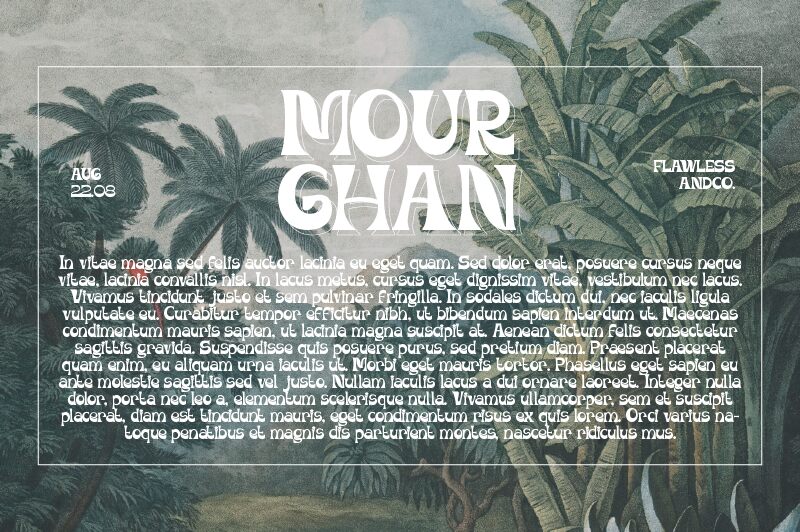
Mourghan Regular
Mourghan font is a retro-inspired display font created by Achmad Yani of Flawless and co. The groovy, bold typeface has distinctive shapes that combine to form theatrical, ornamental letters with an expressive presence. Its ornamental details, vintage flair, and striking character make it a meaningful addition to your aesthetic work.
The free font can be handy in projects involving posters, signage, headings, titles, websites, merchandise designs & packages. Use it to add an elegant touch to book covers for fiction works & magazines or classy wedding invitations & personal cards among other things.